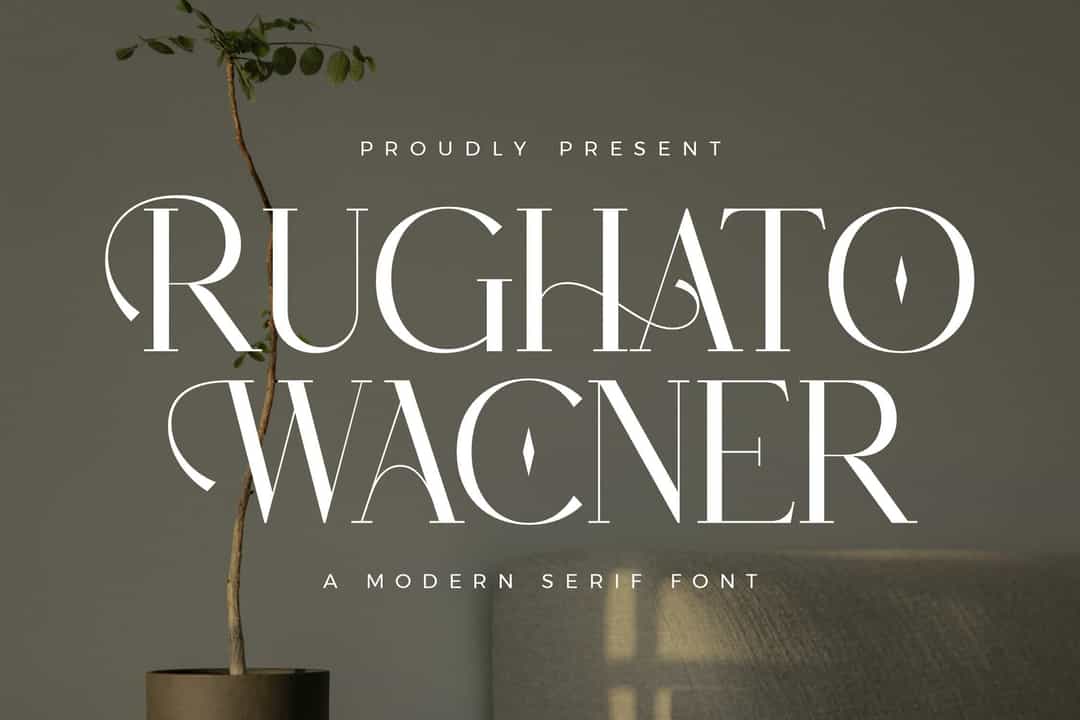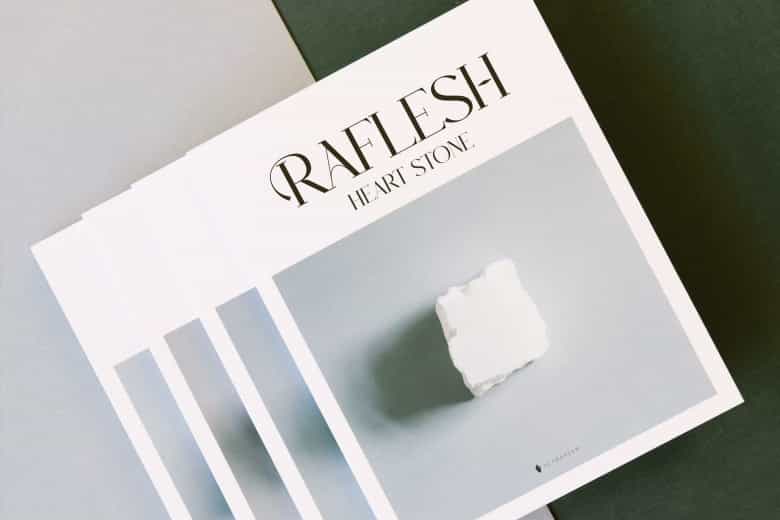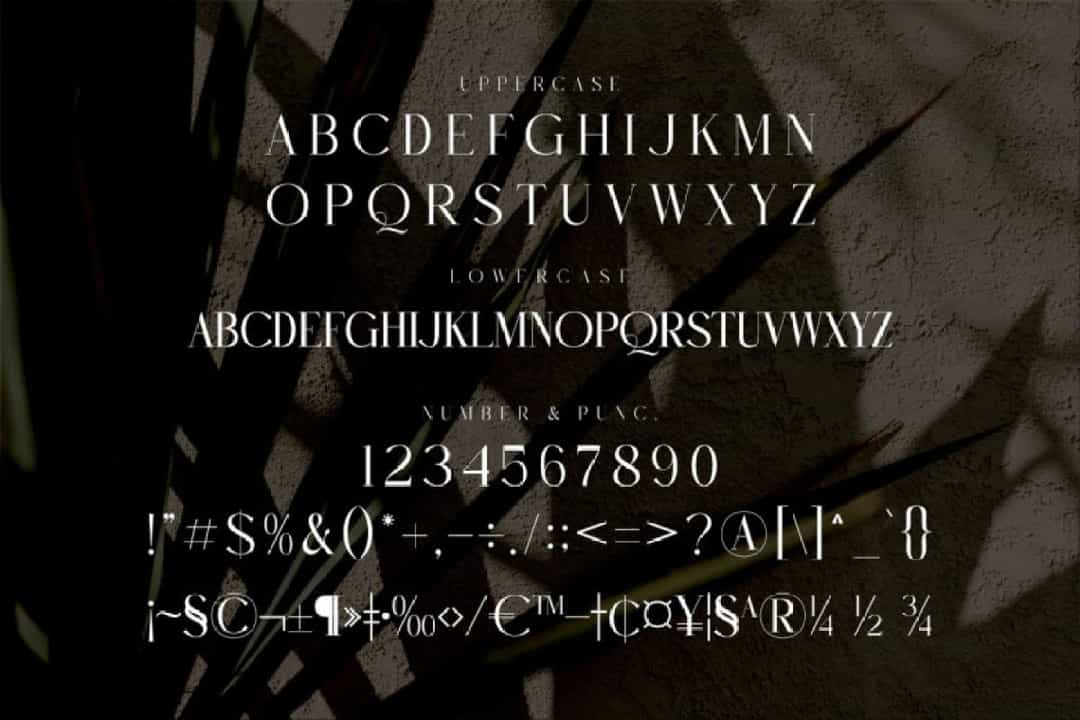
RUGHATO WACNER is an elegant serif typeface with its distinctive style and contemporary appearance, making it suitable for use in logo design, movie title designs, fashion brand clothing designs, magazines lettering as well as quotes.